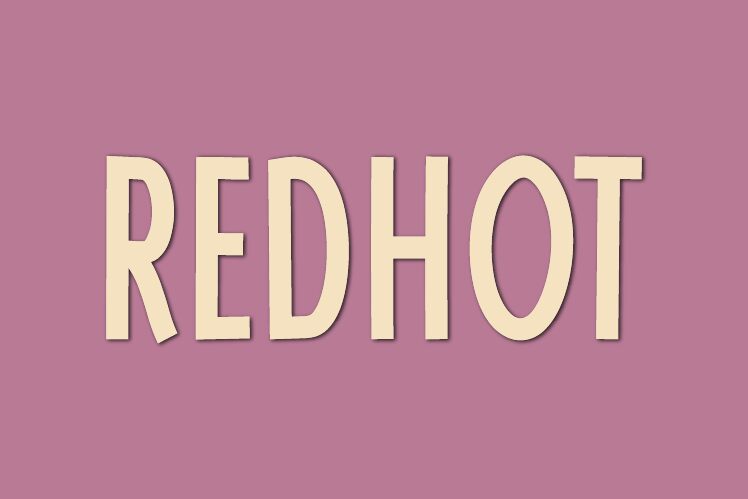
Redhot font family by Hanna Bie comprises 2 font styles full of character and the power to make your designs shine. This free font family can help add casual, whimsical, energetic, and retro-inspired accents to your texts. Reach a friendly and approachable design for your readers whether you are composing a headline, subheading, or slogan.
The relaxed and dynamic design of this font family allows your projects to captivate and engage audiences. Preset environments that can benefit from Redhot include vintage posters, labels, advertising, signage, merchandise, online posts, packaging, logotypes, and much more. Its contemporary appeal lends itself to both printed and digital projects.